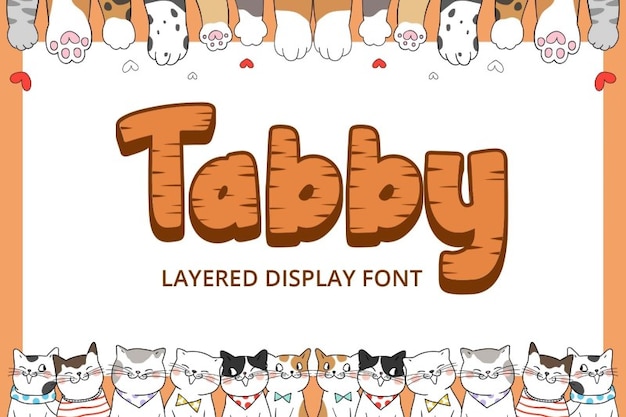
Tabby Font
Attype Studio
Tabby is a charming, whimsical font inspired by playful cats and their mischievous nature. Featuring rounded letters that resemble soft paws, it captures the essence of feline grace and curiosity. Ideal for pet-related branding, children's books, and playful designs, Tabby brings a fun, lighthearted vibe to any project, making every "meow" and message feel delightful.